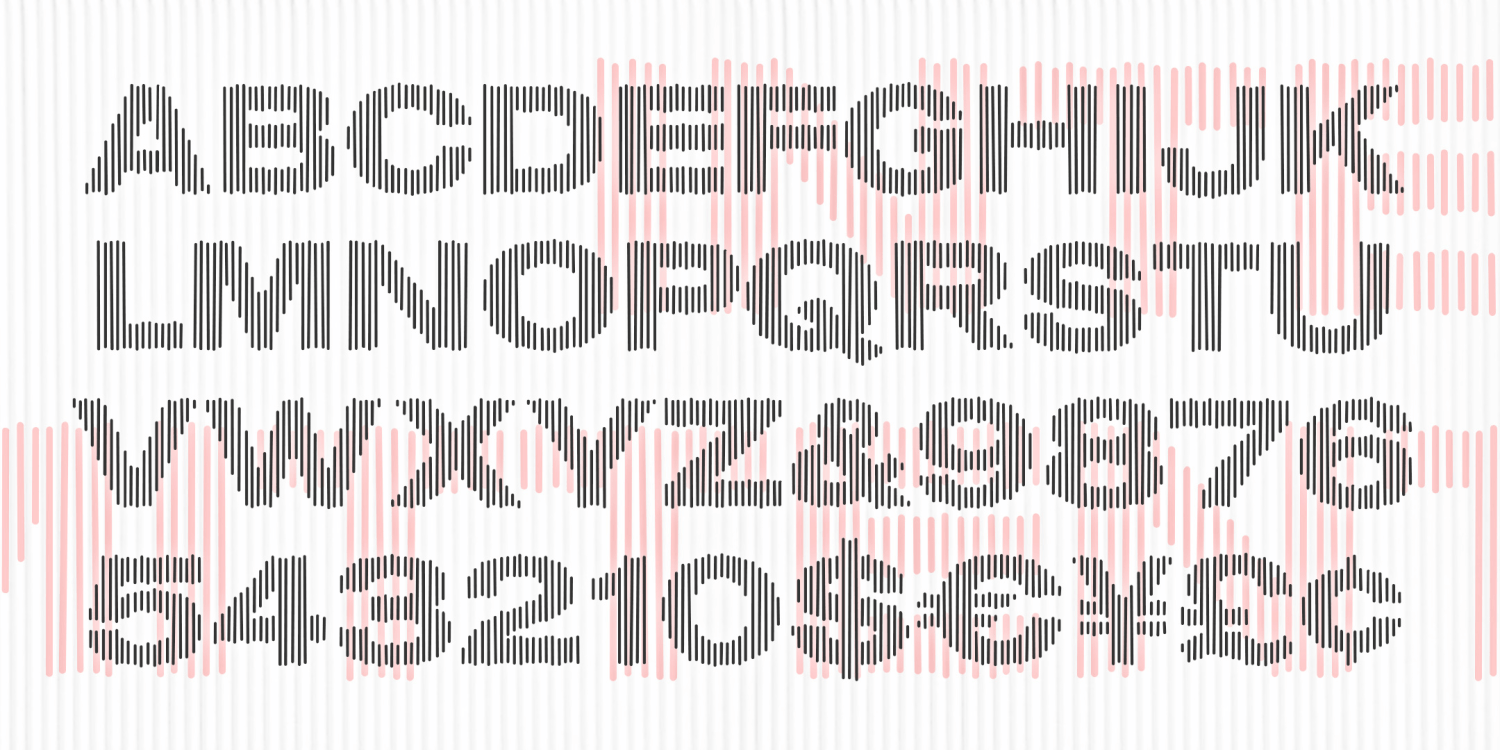
Intermittent
Intermittent is composed of slightly irregular parallel lines that suggest a bold, wide sans serif. Intermittent is like a sketch of a font, bold and wide but with a gentle sparkle. Itwas inspired by some of the titles for the movie "West Side Story," designed by the legendary Saul Bass. Bass' titles take several different turns; this style was used for the title and intermission cards. This font can be condensed, expanded, layered, and negatively spaced to great effect.